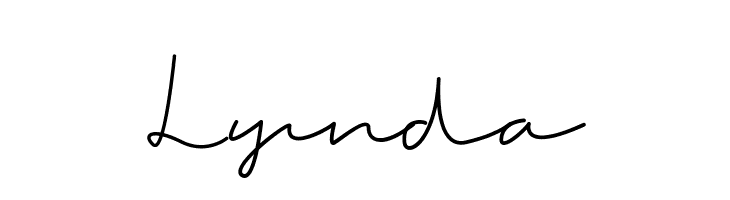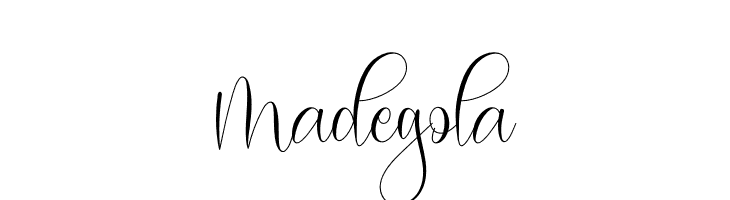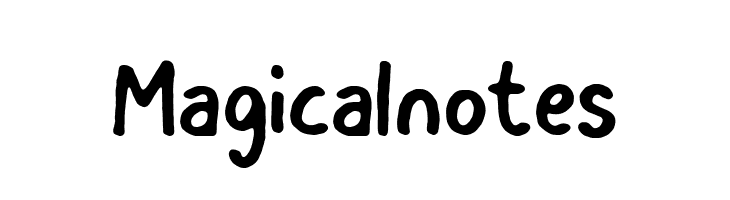
• Lynda
A fluid and elegant handwritten font with smooth, continuous strokes.
• Lyons
A bold, rounded font with a playful and friendly style.
• MAC
Bold, collegiate serif font with strong, blocky forms.
• MAD hacker
A bold, geometric font with a modern, edgy aesthetic and a unique glitch effect.
• Mad King Games
A bold, angular font with a futuristic and aggressive style.
• Madegola
A sophisticated script font with elegant loops and swashes.
• Madelyn
A graceful script font with fluid, elegant strokes and a handwritten feel.
• MAGIC WORLD
A playful, bold font with rounded, thick strokes and a whimsical touch.
• Magicalnotes
A playful, handwritten font with bold, rounded characters and a whimsical style.
• MagicBeauty
A whimsical, hand-drawn font with playful, irregular strokes.